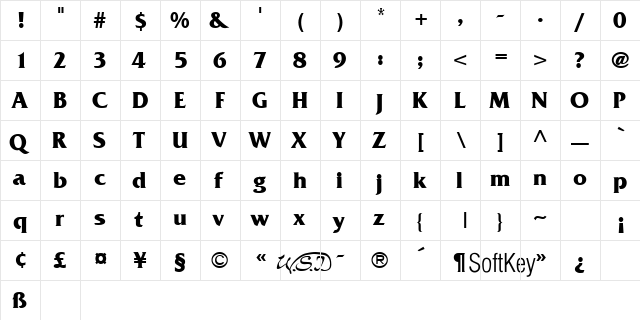
Keep Talking 1 Bold Font Preview
Keep Talking 1 Bold
Design Context for Keep Talking 1 Typeface
Keep Talking 1 takes a measured approach to typography — its balanced proportions and neutral character make it a reliable workhorse for both digital and print work. The heavy weight commands attention and anchors typographic hierarchies.